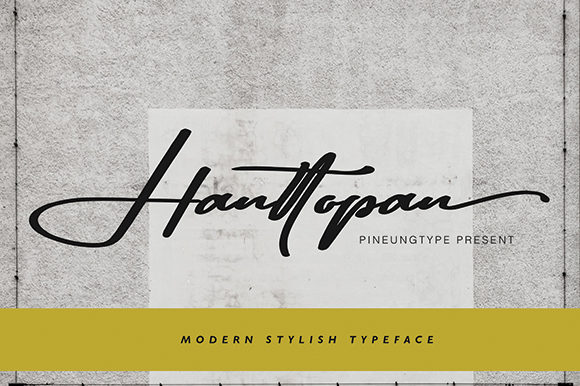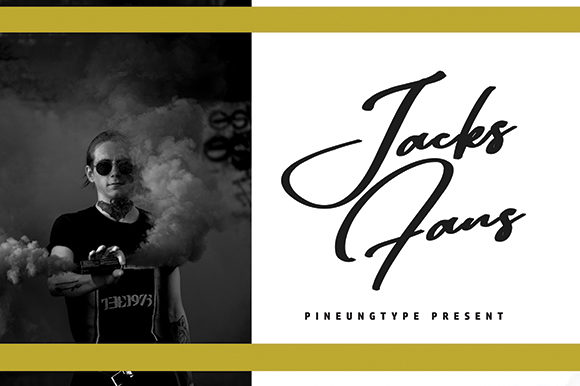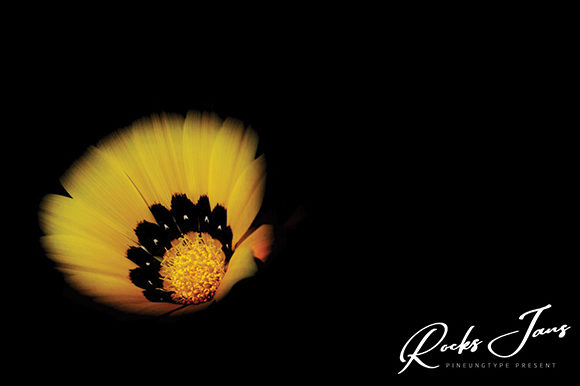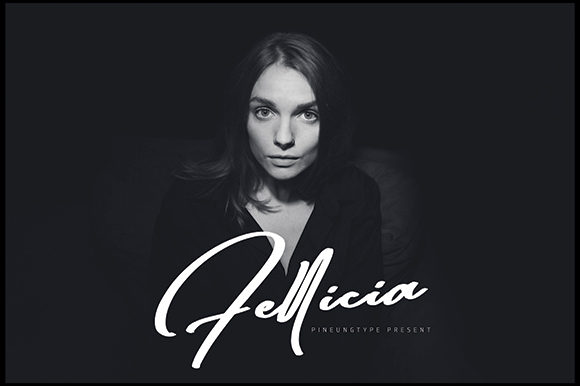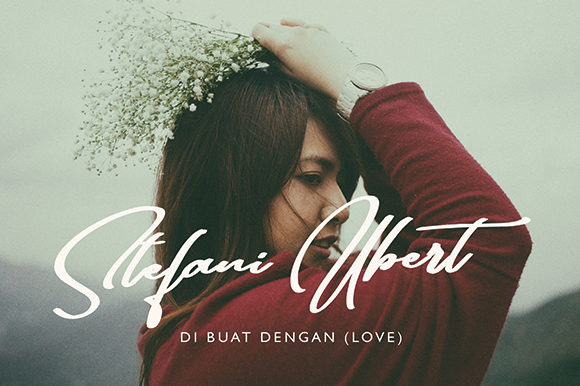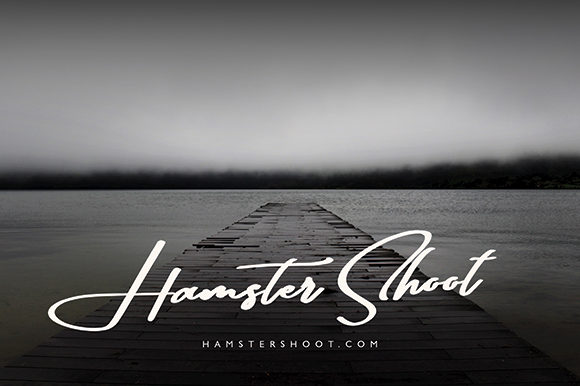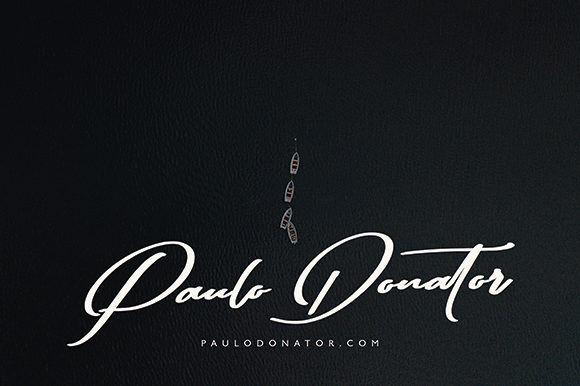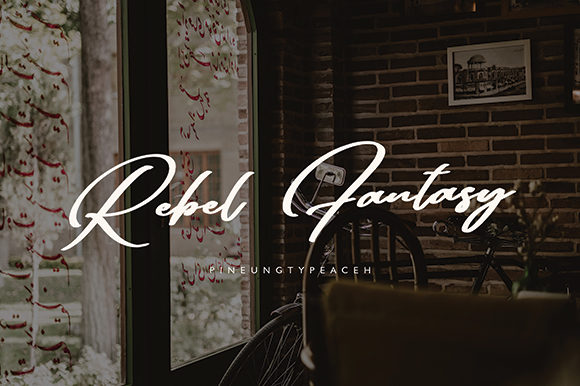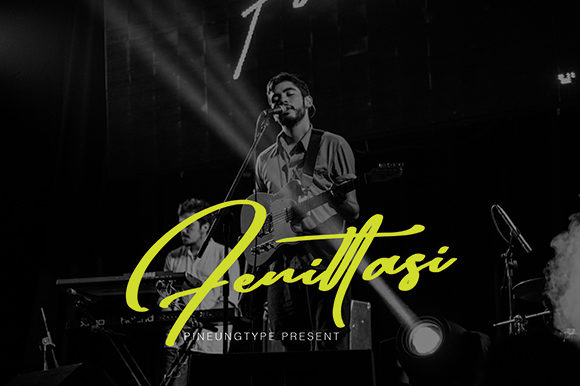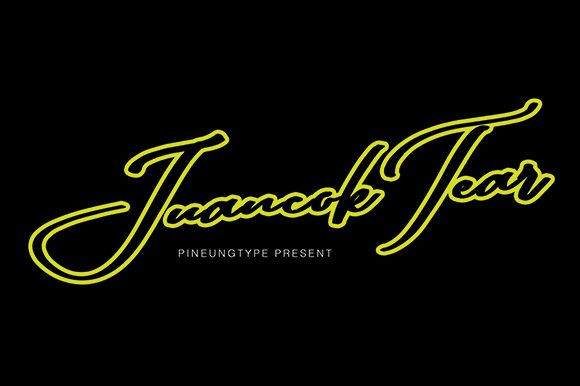
Hanttopan Font
About Hanttopan Font
Hanttopan is a unique script font that feels modern and playful. Get inspired by its unique charm, and turn any design idea into a true standout!